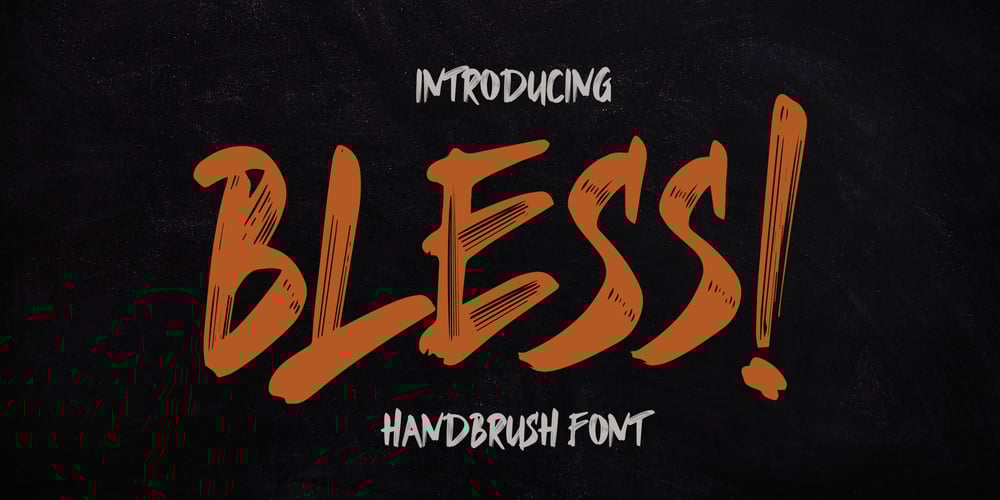
Bless Brush Font Family was designed by Irfan Mahmudin and published by Skiiller Studio. Bless Brush contains 1 styles and family package options. BLESS is a brush font that has a beautiful brush-like texture accompanied by scratches like the original and this font supports encoded PUA and basic Multilinggual–Uppercase